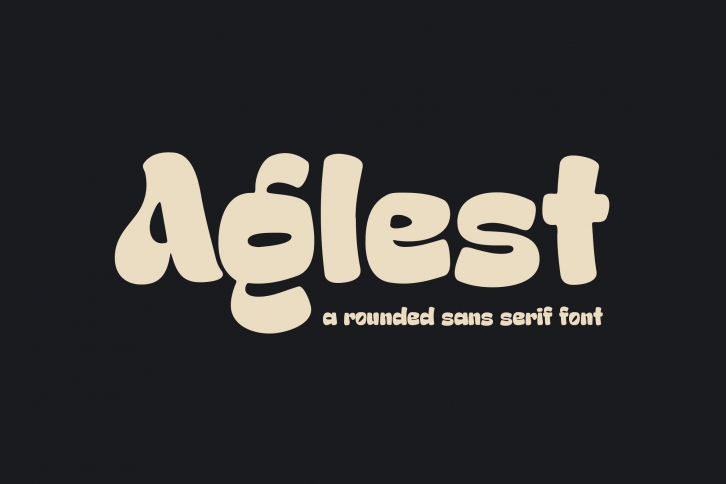
Aglest a Rounded Sans Serif is a trendy and unique font with an authentic style. It was designed by Blankids and it's a great choice for creative people who need such a font. It was released on February 3, 2022 and the file size is 4.80 MB. Aglest a Rounded Sans Serif will add an organic vibe to any design idea!